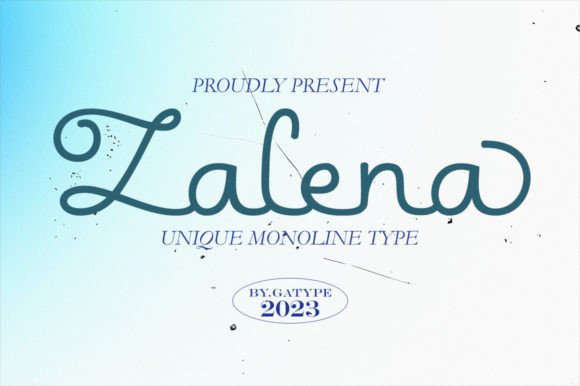
Introducing Zalena Font, the perfect script font for your WordPress blog and beyond. Created by gatype, this font combines a delightful hand-drawn style with a modern twist, making it the ultimate choice for adding a touch of elegance and creativity to your projects.
With its captivating ligature alternative, Zalena offers you endless possibilities to bring your designs to life. Whether you're crafting a logo, writing notes, designing posters, printing t-shirts, creating stickers, or labeling your products, this font will effortlessly elevate your work to new heights.
Why settle for ordinary when you can stand out with Zalena Font? Its unique and eye-catching design will captivate your audience and leave a lasting impression. Let your words flow beautifully across your blog, mesmerizing readers with its elegant curves and stylish strokes.
Unlock your creativity and explore the endless potential of Zalena Font. Its versatility knows no bounds, allowing you to effortlessly adapt it to any project or theme. Whether you're aiming for a vintage look or a contemporary feel, this font has got you covered.
Not only does Zalena Font deliver on aesthetics, but it also ensures a seamless user experience. Its carefully crafted characters ensure legibility, making it a breeze for your readers to consume your content effortlessly. Say goodbye to dull and monotonous fonts, and welcome a font that sparks joy and excitement.